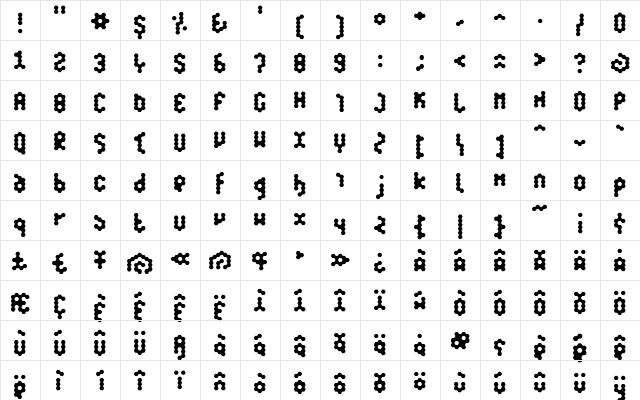
Hive Unit
Design Context for Hive Typeface
Hive is a composed and adaptable typeface that performs quietly and consistently across a wide range of design contexts.
Pro Tip: Use Hive in both headline and body roles to test its range before committing to a single application.